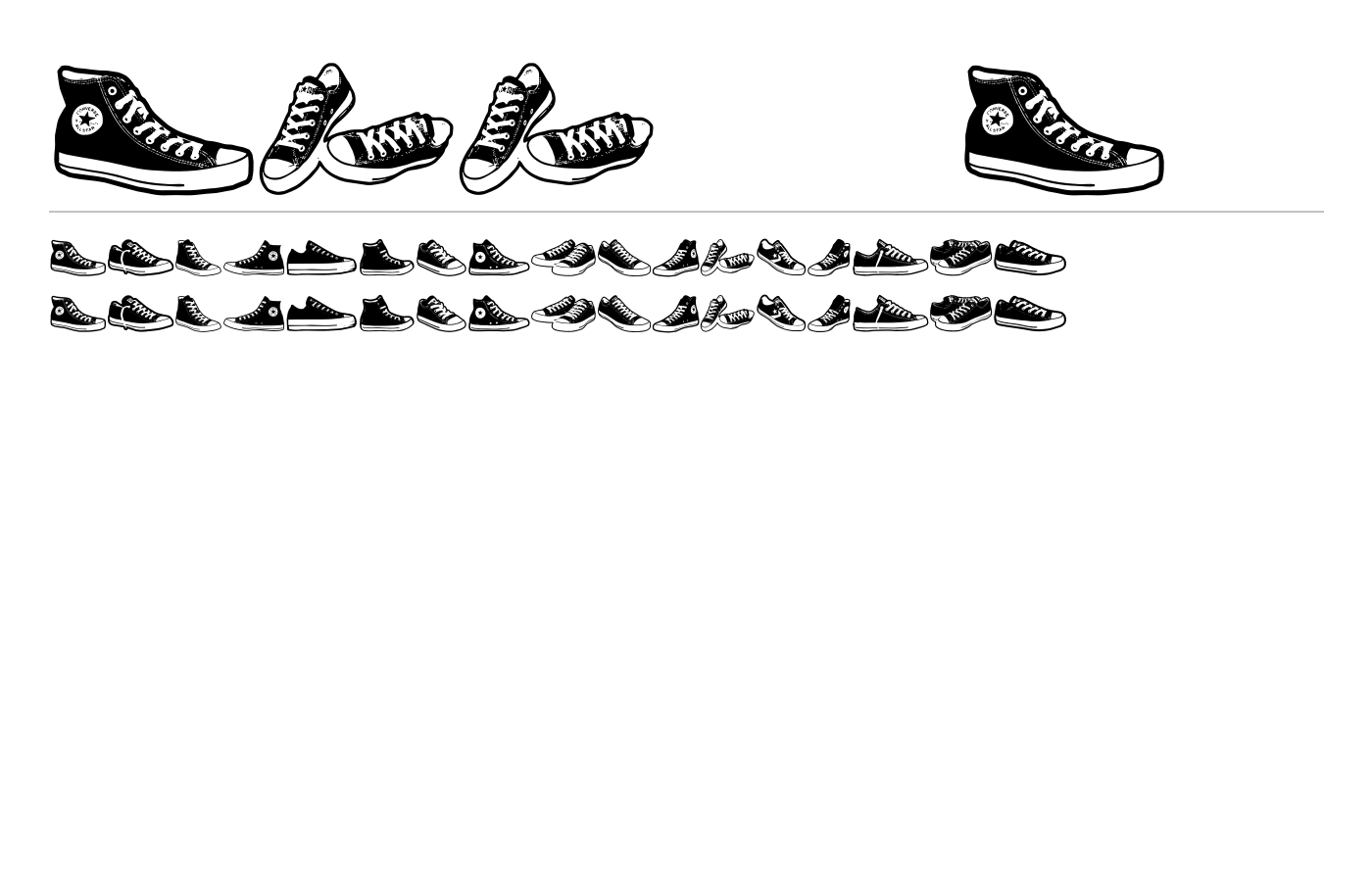
All Star Font is a playful and unique display typeface composed entirely of stylized sneaker illustrations, evoking a casual and sporty vibe. This font is perfect for creative, fun projects related to streetwear, youth culture, or sports branding where a bold and unconventional look is desired. Its distinctive sneaker shapes make it ideal for logos, posters, or packaging that aim to stand out with a fresh, energetic personality.
All Star Font
About All Star Font
| Font family | All Star Font |